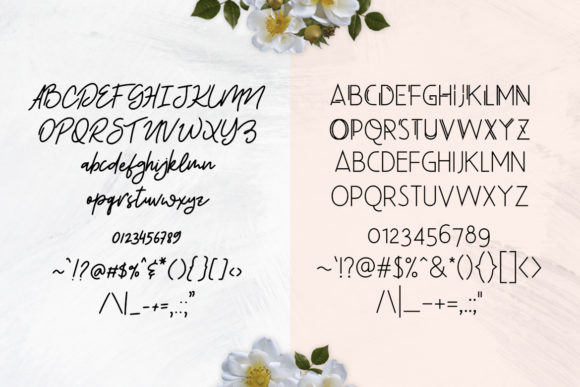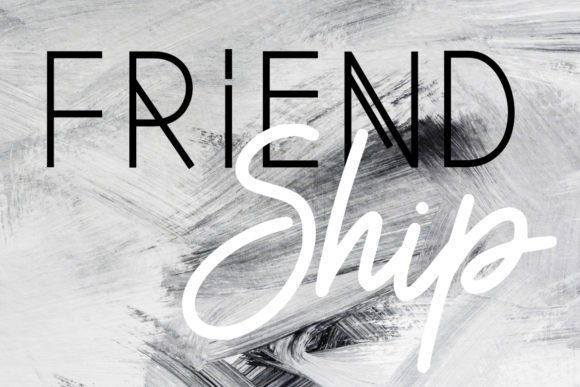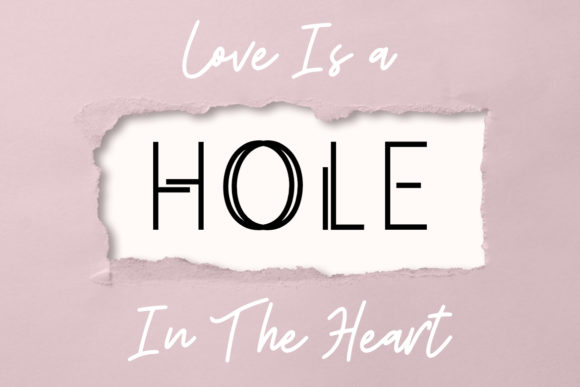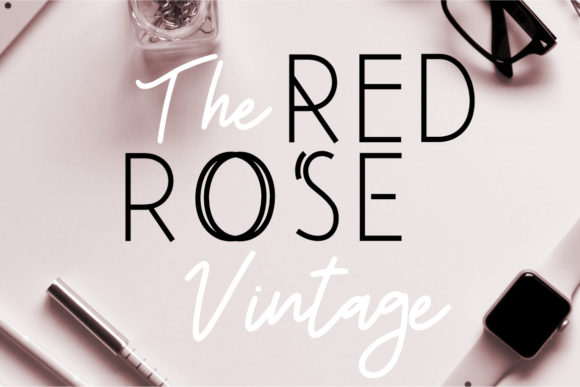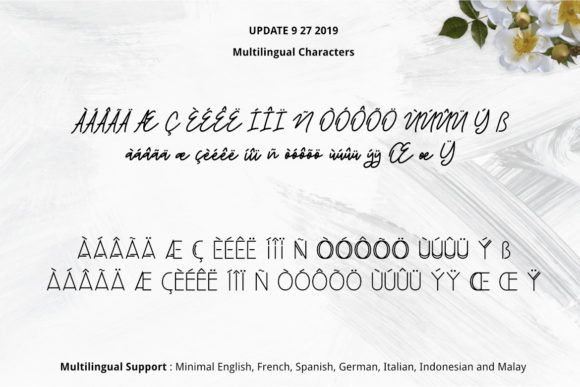
Beauty Salon Font
About Beauty Salon Font
Beauty Salon feels equally modern and elegant. This handwritten font will elevate a wide range of design projects to the highest level, be it branding, headings, wedding designs, invitations, signatures, logos, labels, and much more!